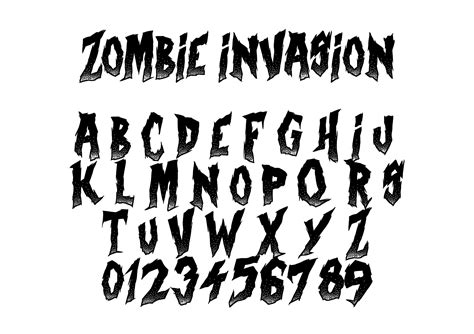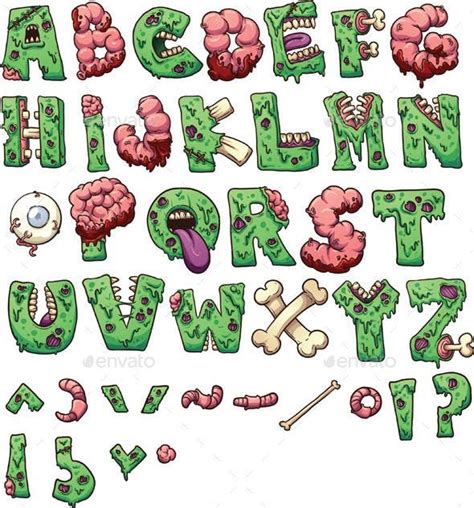
Alphabet Zombie Font: Creative & Spooky Typography
Readers, have you ever wondered how to make your Halloween decorations, invitations, or even your social media posts truly stand out? Imagine a font that's not just spooky, but also has a unique charm and personality—a font that screams "zombie apocalypse" in the most fun way possible. That's where the world of alphabet zombie fonts comes in.
Think beyond the typical scary fonts and embrace a style that's both creative and spooky. We've delved deep into the fascinating world of alphabet zombie fonts, and we're excited to share our insights and inspiration with you. This is not your average font guide—it's a journey into the heart of zombie font creativity.
What is an Alphabet Zombie Font?
An alphabet zombie font is a typeface designed to evoke the spirit of the undead. It's more than just a spooky font—it's a playful exploration of the zombie theme, often featuring elements like dripping blood, decaying flesh, and even humorous zombie expressions.
These fonts are perfect for projects that need a touch of macabre or a fun, light-hearted take on the undead. They're a great way to add personality and a unique aesthetic to Halloween decorations, invitations, posters, social media graphics, and even website designs.
Why Are Alphabet Zombie Fonts So Popular?
The popularity of alphabet zombie fonts can be attributed to several factors.
The Appeal of the Zombie Theme
Zombies have become a cultural phenomenon. From movies and TV shows to video games and literature, zombies have captivated the imagination of audiences worldwide. The appeal of zombies lies in their unsettling yet fascinating nature.
A Unique and Creative Aesthetic
Alphabet zombie fonts offer a unique and creative aesthetic that sets them apart from traditional fonts. They add a touch of personality and playfulness to designs, making them stand out from the crowd.
Versatility and Adaptability
These fonts are surprisingly versatile. They can be used for a wide range of projects, from Halloween decorations to branding and graphic design. Their adaptability allows designers to experiment with different styles and create unique and eye-catching designs.
Finding the Perfect Alphabet Zombie Font
With so many options available, finding the perfect alphabet zombie font for your project can be overwhelming. Here's a guide to help you navigate the world of zombie fonts:
Consider Your Project's Theme
The first step is to consider the overall theme of your project. Are you going for a gruesome and realistic zombie look, or a more cartoonish and playful vibe? Once you have a clear vision for your project, you can narrow down your choices.
Explore Different Styles
Alphabet zombie fonts come in various styles, from bold and chunky to elegant and gothic. Explore fonts with different visual features—fonts that have dripping blood, cracked skulls, or even humorous zombie faces.
Experiment with Font Pairing
Don't be afraid to experiment with font pairing. Mixing and matching different zombie fonts can create a unique and eye-catching design.
Designing with Alphabet Zombie Fonts: Tips and Tricks
Here are some tips and tricks to help you unleash the full creative potential of alphabet zombie fonts:
Keep It Simple
Don't overload your design with too many fonts or visual elements. Allow the zombie font to shine by keeping the rest of your design simple and clean.
Use Color Strategically
Color plays a crucial role in conveying the mood and feel of your design. Use bold, contrasting colors like red and black to highlight the spooky elements of your zombie font.
Experiment with Textures
Consider adding textures to your design to enhance the visual appeal of your zombie font. Adding textures like dripping blood or rough concrete can add depth and realism to your design.
Where to Find Alphabet Zombie Fonts
There are numerous online resources where you can find a vast collection of alphabet zombie fonts:
Font Websites
Websites like Font Squirrel, Dafont, and Google Fonts offer a wide variety of free and paid alphabet zombie fonts.
Creative Market
Creative Market is a marketplace for digital assets, a great place to find high-quality premium zombie fonts.
Etsy
Etsy is a global marketplace where you can find unique and independent zombie fonts from various designers.
Using Alphabet Zombie Fonts: Real-World Examples
To see how alphabet zombie fonts can be used in various applications, let's explore some real-world examples:
Halloween Decorations
Alphabet zombie fonts are a perfect choice for creating eye-catching Halloween decorations. Use them for banners, posters, invitations, and even DIY decorations like tombstones.
Social Media Graphics
Add a spooky touch to your social media posts with alphabet zombie fonts. Use them to create eye-catching graphics, posters, or even just to make your text stand out.